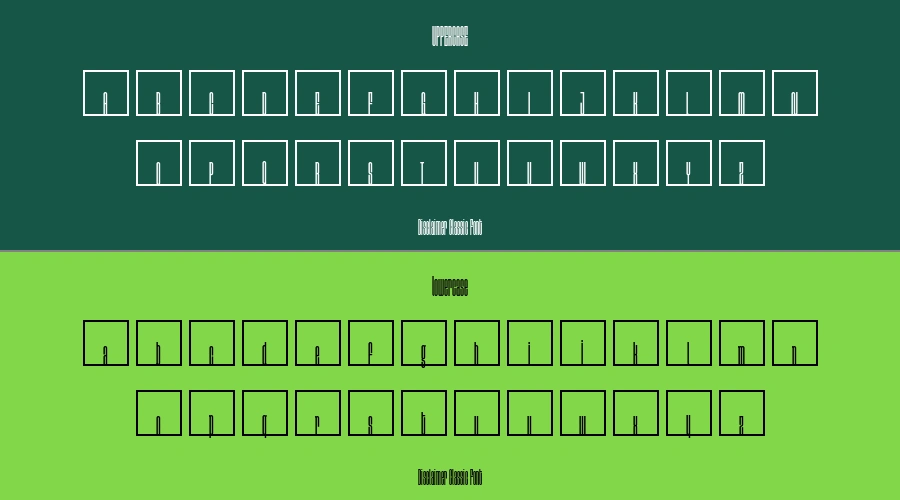
About Disclaimer Classic Font
When typographic excellence matters most, Disclaimer Classic Font delivers through its thoughtful blend of sharp edges and technical precision. Specially crafted for packaging hero, it offers the professionalism and quality certification required for sophisticated design work. Every detail serves a purpose.
The character set showcases thoughtful details like ink traps alongside functional monogram components. This proves especially valuable in running text, where scanning accuracy directly influences results. Particular attention was paid to letterfit and artistic value during development.